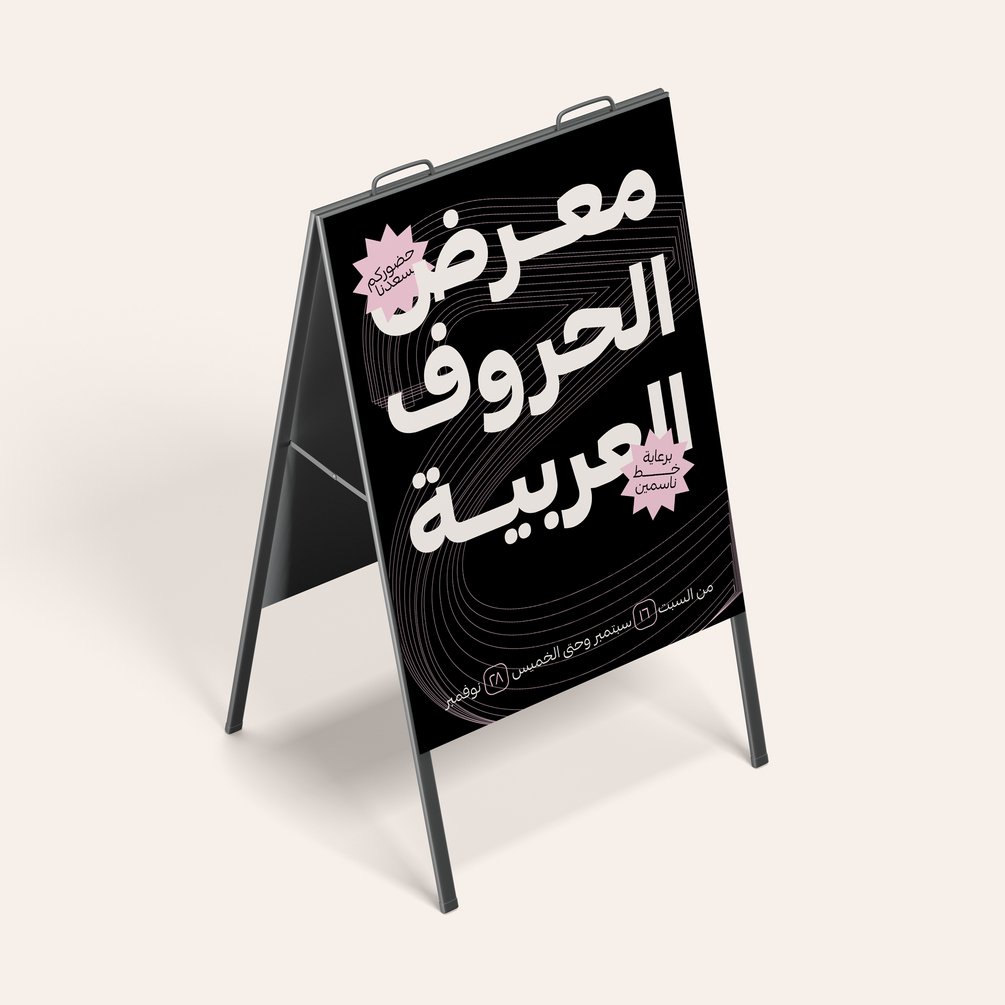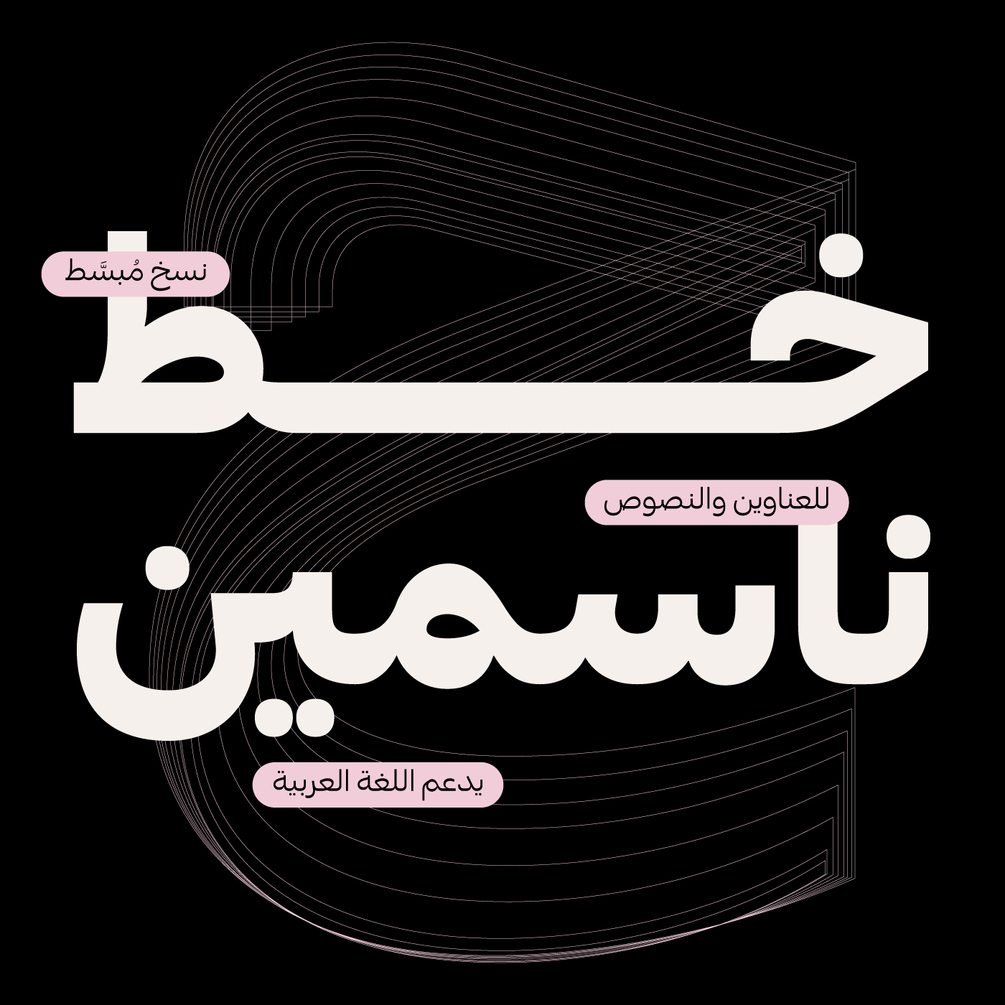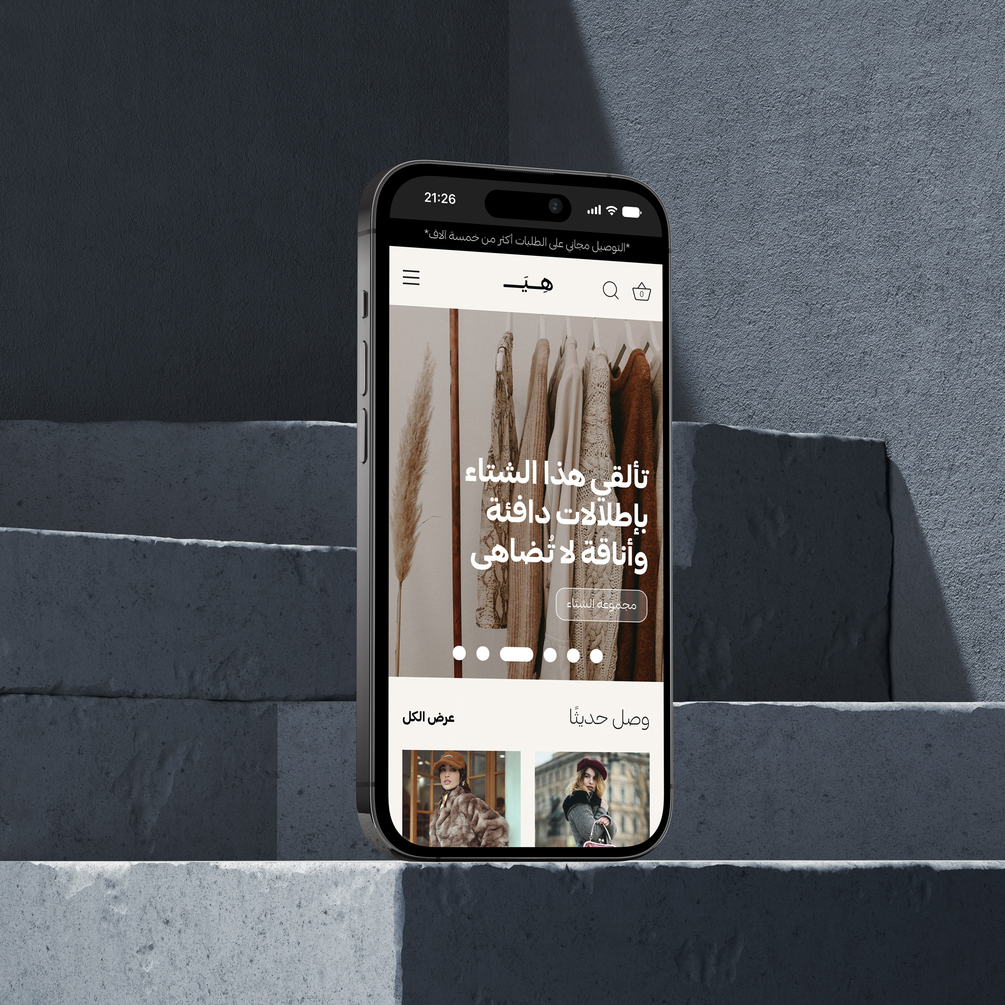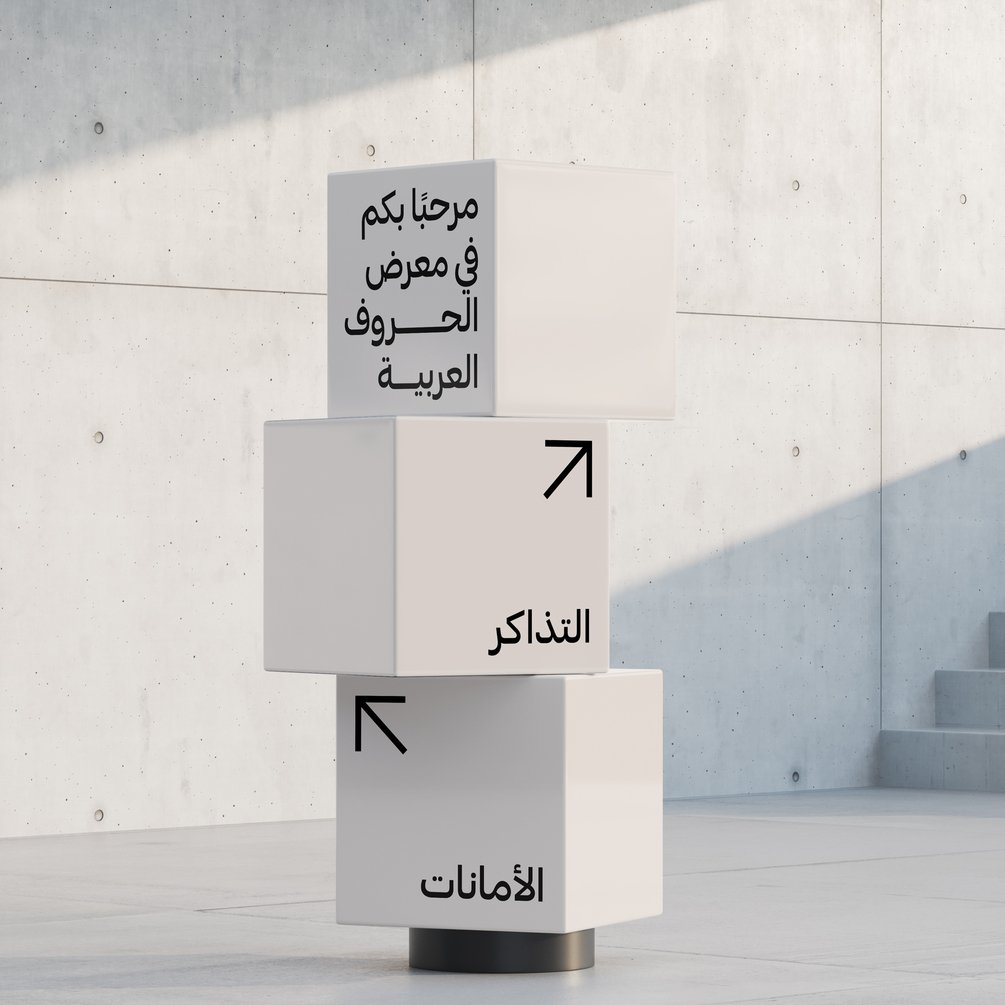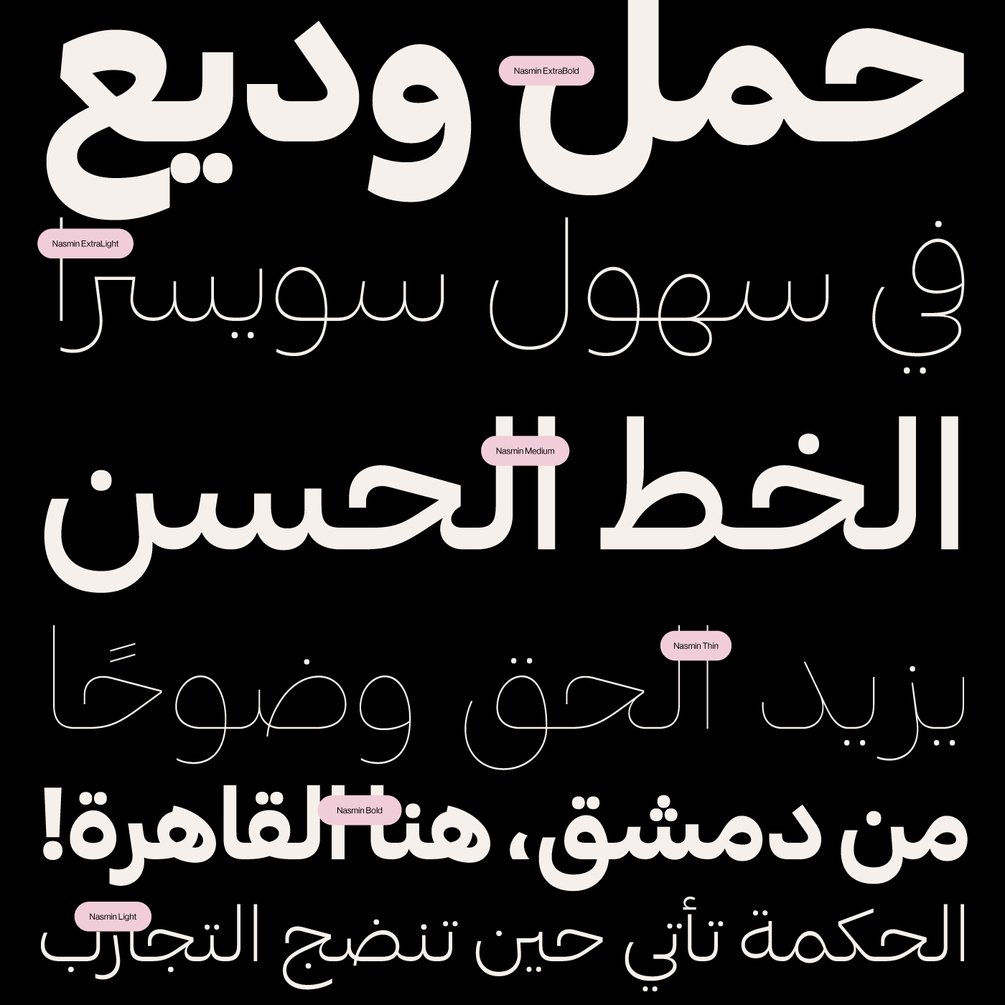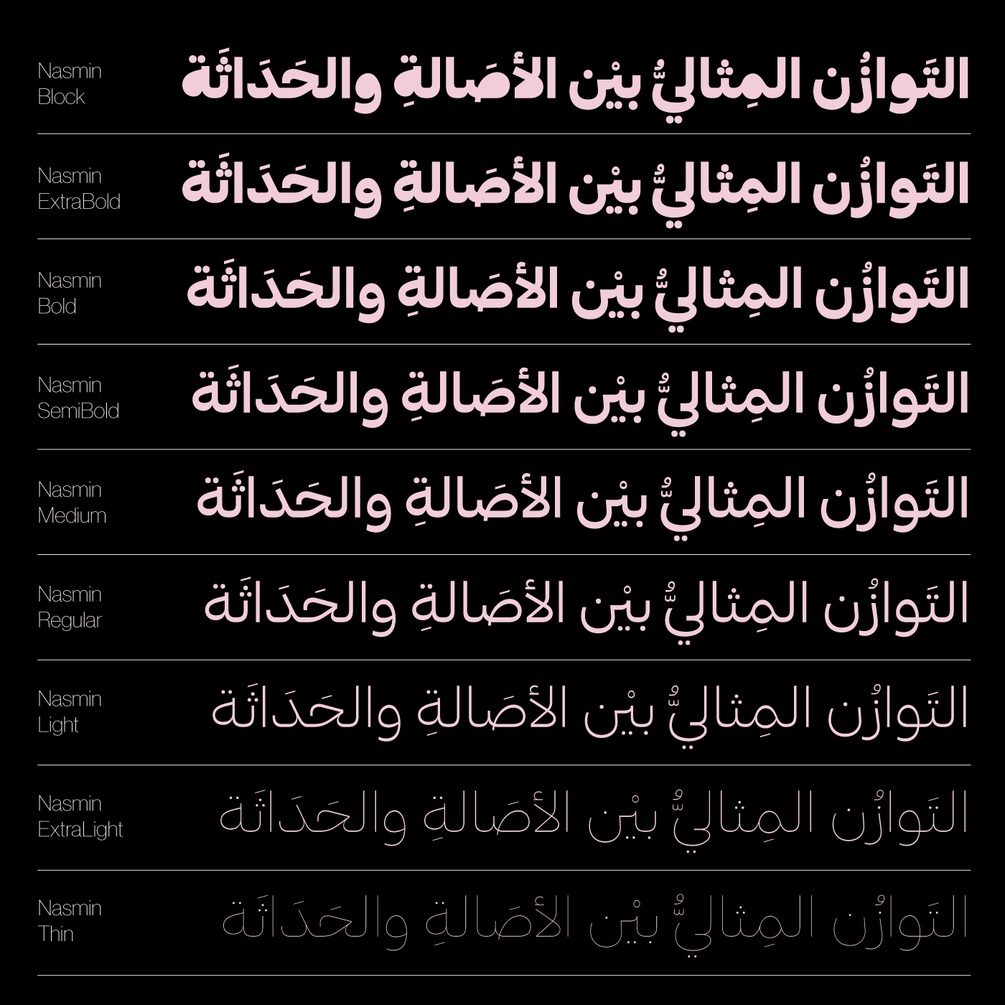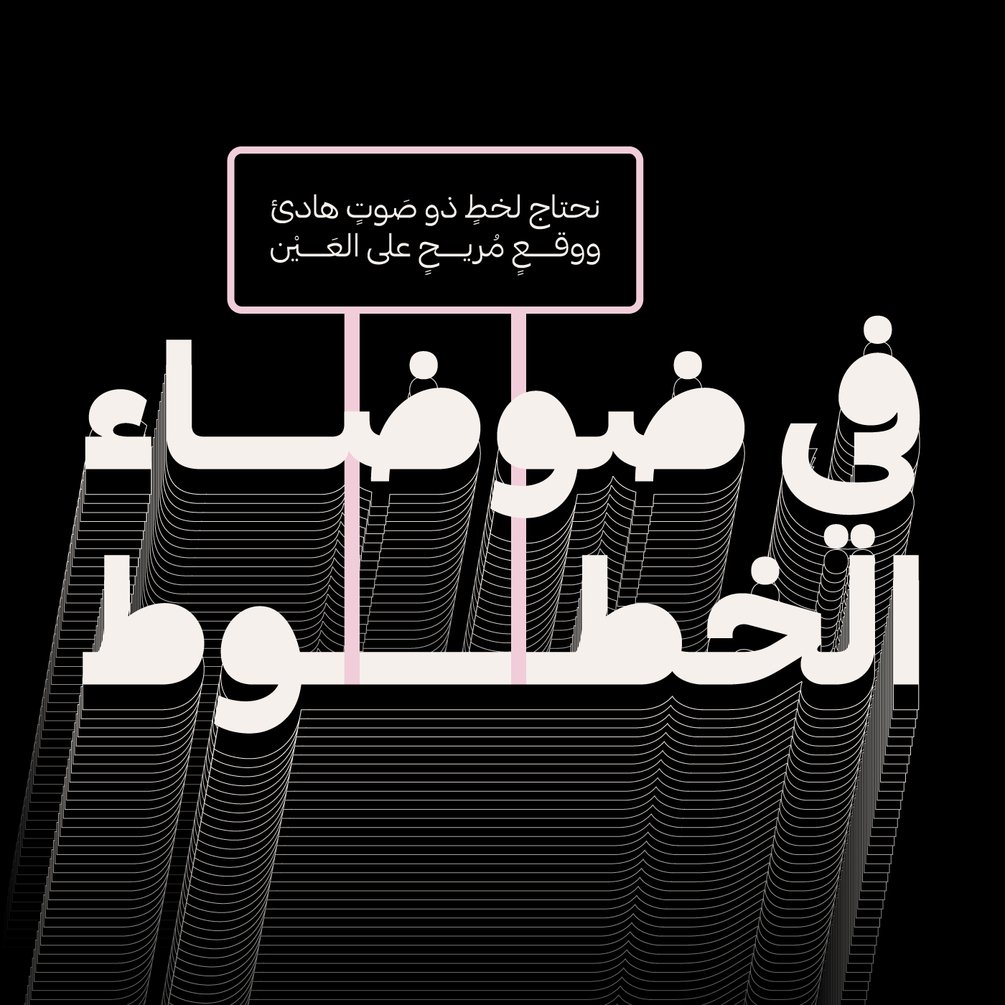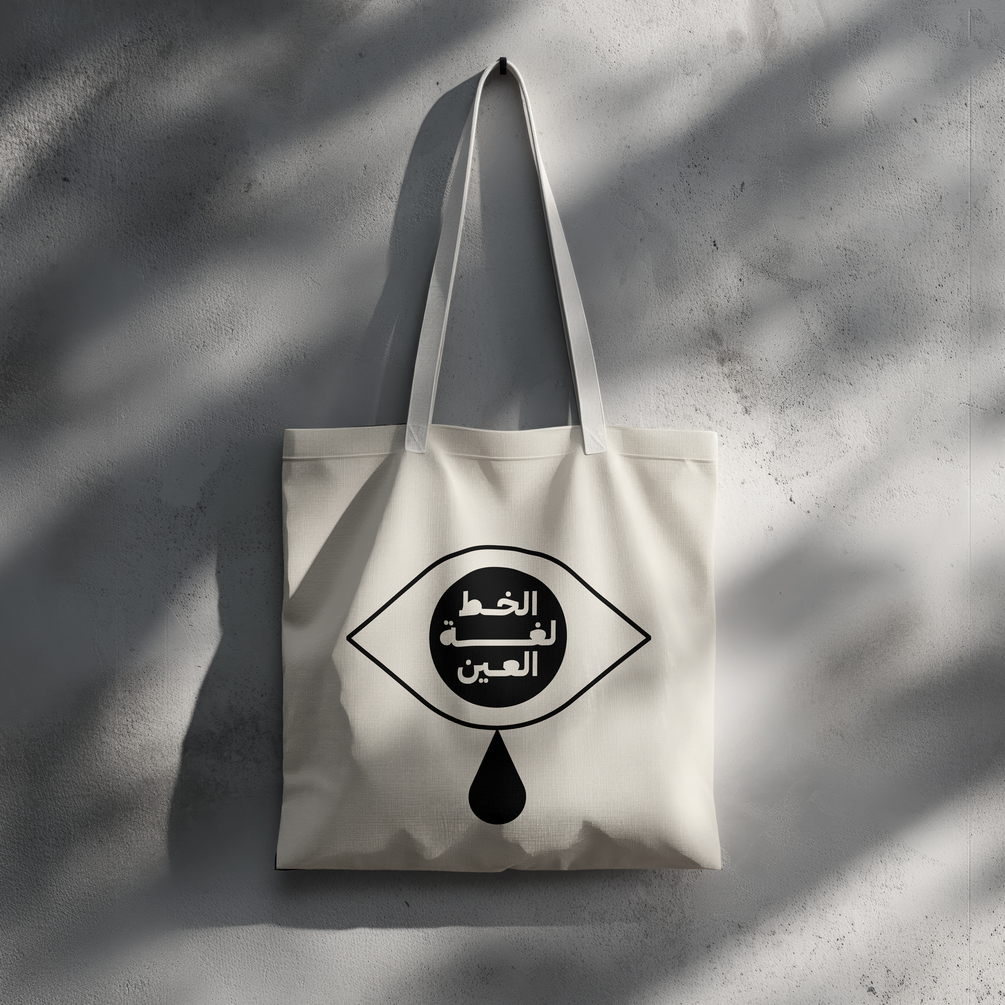
Nasmin Typeface
A modern Arabic typeface inspired by the elegance of Naskh script, designed for both headlines and body text.
It's clean, minimal, smooth yet aesthetic.
Works very well with any clean sans English typeface which make it perfect for bilingual use.
Covers a good range of weights from thin to extrabold.
Includes a unique block style which is great for display use.
Includes open type features like stylistic sets, well-made kerning, required ligatures, discretionary ligatures.
It is ideal for a wide range of applications, like:
Branding & logo design.
Websites & applications.
Editorial use & print.
Ads & communications.
Designed By
Mahmoud Abdelghany
Type Foundry
maType